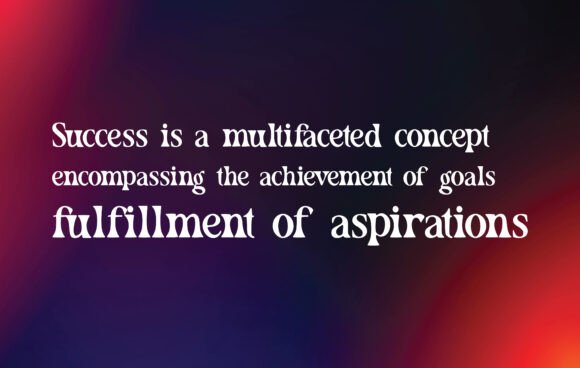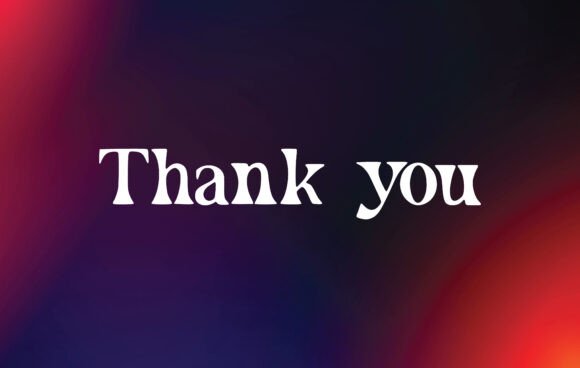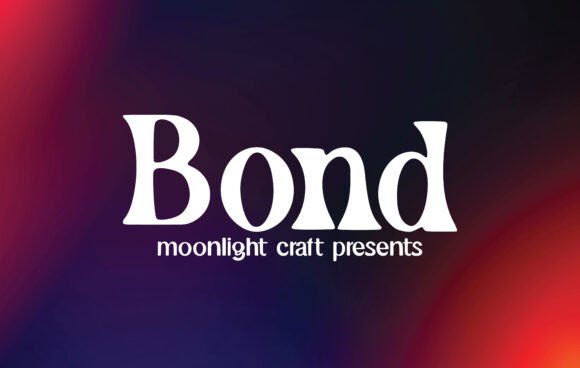
Bond Font: Elevate Your Designs with Elegance and Versatility
Are you tired of using the same old fonts in your designs? Look no further than the Bond Font, a stylish and versatile typeface that’s sure to take your creative ideas to the next level. With its clean lines, elegant curves, and exceptional legibility, this font is perfect for a wide range of design applications, from magazine headlines and t-shirts to social media graphics, branding, and wedding invitations.
A Font Designed for Creatives
The Bond Font is designed to be a true favorite among designers and crafters. Its unique blend of sophistication and playfulness makes it an excellent choice for anyone looking to add a touch of elegance to their work. Whether you’re creating a logo, brochure, or social media post, this font is sure to make your design stand out from the crowd.
Legible and Versatile
One of the standout features of the Bond Font is its exceptional legibility. Whether you’re using it as a title or body text, this font is easy to read and understand, making it perfect for designs that require a clear and concise message. Additionally, its versatility means you can use it in a variety of contexts, from large-scale headlines to smaller body text.
Perfect for a Wide Range of Designs
The Bond Font is perfect for many different design applications, including:
• Magazine headlines: Add a touch of sophistication to your magazine covers with the Bond Font.
• T-shirts: Create eye-catching and stylish t-shirt designs with this versatile font.
• Social media: Elevate your social media graphics with the Bond Font’s clean lines and elegant curves.
• Branding: Use the Bond Font to create a consistent and professional brand identity.
• Wedding invitations: Add a touch of elegance to your wedding invitations and stationery with this beautiful font.
• Cards: Create stylish and sophisticated greeting cards with the Bond Font.
Why Choose the Bond Font?
So why choose the Bond Font over other fonts on the market? Here are just a few reasons:
• Unique style: The Bond Font has a unique and distinctive style that’s sure to set your designs apart.
• Exceptional legibility: This font is easy to read and understand, making it perfect for designs that require a clear message.
• Versatility: Use the Bond Font in a variety of contexts, from large-scale headlines to smaller body text.
• Elegance: Add a touch of sophistication and elegance to your designs with this beautiful font.
Tips for Using the Bond Font
Here are a few tips for getting the most out of the Bond Font:
• Experiment with different sizes: The Bond Font looks great in a variety of sizes, from large-scale headlines to smaller body text.
• Pair it with other fonts: Try pairing the Bond Font with other fonts to create a unique and eye-catching design.
• Use it consistently: Use the Bond Font consistently throughout your design to create a cohesive and professional look.